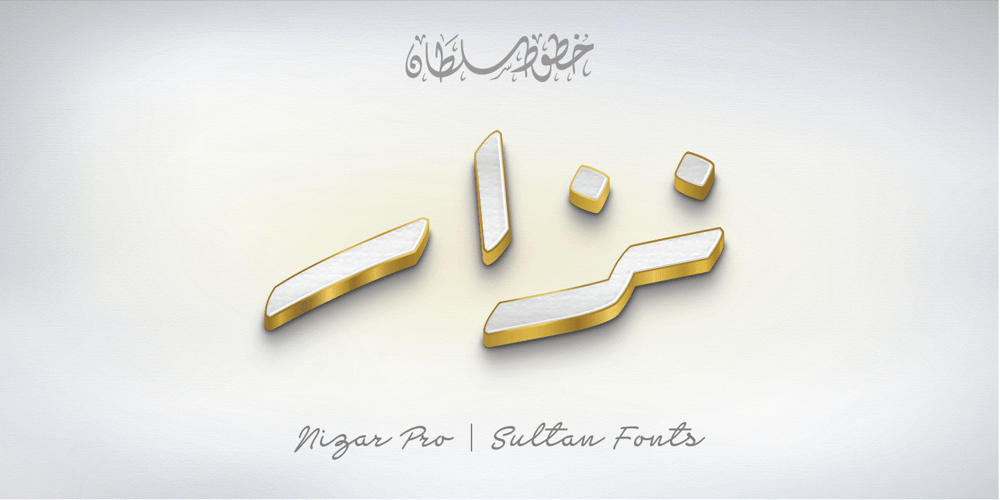
Sultan Nizar Pro Font Family was designed by Sultan Maqtari and published by Sultan Fonts. Sultan Nizar Pro contains 2 styles and family package options. In 2014 I designed the Nizar font herehttps://www.myfonts.com/fonts/sultan-fonts/sf-nizar/It was prompted with great interest by graphic designers, today I am developing the Nizar Pro font, this font does not replace the previous Nizar font but rather continued it, in a way that does not depend on the literal transmission of Nizar Qabbani’s method of writing, as the new script relied on the inspiration of Nizar’s writing and imparting it Improvements and corrections to the previously designed Ruqah script rules found here https://www.myfonts.com/fonts/sultan-ruqah/The Nizar Pro font includes wide and Normal pens, so it provides all flexibility for the user to process the text and creative work. The font Nizar Pro includes Arabic, Persian, Kurdish, Urdu and Latin languagesIn the font Nizar Pro has many of OpenType features